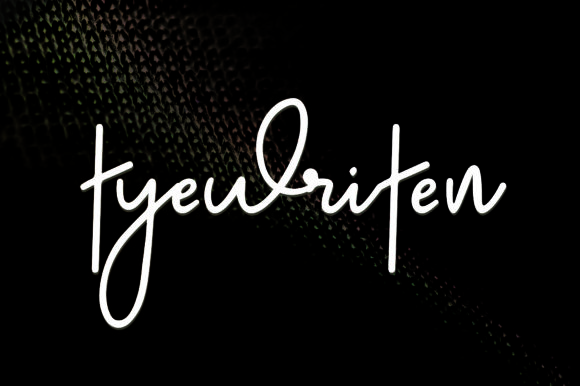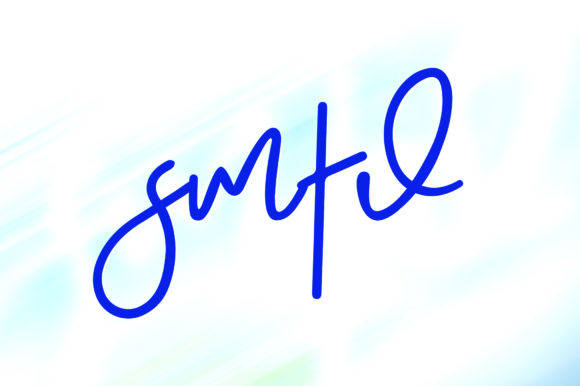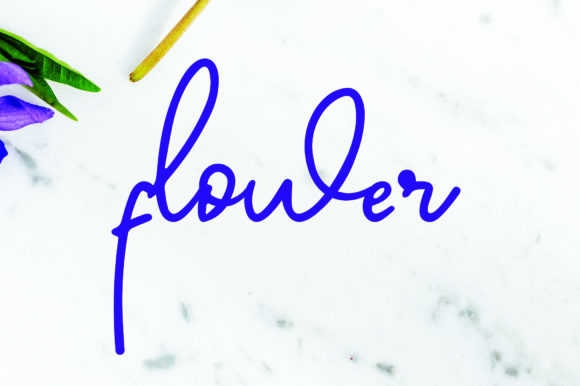
Betyio Font: The Ultimate Handwritten Font for Creative Projects
Are you a designer or crafter looking for a unique and versatile font to elevate your creative projects? Look no further than Betyio Font! This simple, original, and versatile handwritten font is perfect for a wide range of applications, from logos and wedding invitations to headings, t-shirts, and more.
What Makes Betyio Font So Special?
Betyio Font stands out from the crowd with its distinctive handwritten style, which adds a personal touch to any project. Its simplicity and elegance make it an excellent choice for designers and crafters who want to create something truly special. Whether you’re working on a logo, invitation, or signage, Betyio Font is sure to impress.
Uses for Betyio Font
The versatility of Betyio Font is one of its most significant advantages. Here are just a few examples of the many creative projects you can use it for:
- Logos: Create a unique and memorable logo for your business or brand with Betyio Font.
- Wedding Invitations: Add a touch of elegance and sophistication to your wedding invitations with this beautiful handwritten font.
- Headings: Use Betyio Font to create eye-catching headings for your blog posts, articles, or social media graphics.
- T-Shirts: Design custom t-shirts with Betyio Font for a unique and stylish look.
- Letterhead: Elevate your business correspondence with Betyio Font on your letterhead.
- Signage: Create eye-catching signs for your business or event with Betyio Font.
- Labels: Use Betyio Font to design custom labels for your products or gifts.
- News: Add a personal touch to your news articles or blog posts with Betyio Font.
- Posters: Create stunning posters for your business or event with Betyio Font.
- Badges: Design custom badges with Betyio Font for conferences, events, or employee recognition.
Why Choose Betyio Font?
So, why should you choose Betyio Font for your creative projects? Here are just a few reasons:
- Unique Style: Betyio Font has a distinctive handwritten style that sets it apart from other fonts.
- Versatility: Use Betyio Font for a wide range of creative projects, from logos to posters.
- Elegance: Betyio Font adds a touch of elegance and sophistication to any project.
- Easy to Read: Despite its handwritten style, Betyio Font is easy to read and understand.
Tips for Using Betyio Font
Here are a few tips for getting the most out of Betyio Font:
- Experiment with Sizes: Try out different font sizes to see how Betyio Font looks in various contexts.
- Pair with Other Fonts: Combine Betyio Font with other fonts to create a unique and visually appealing design.
- Use for Headlines: Use Betyio Font for headlines or titles to add a touch of elegance and sophistication.
- Add a Personal Touch: Use Betyio Font to add a personal touch to your designs, such as a handwritten note or signature.
In conclusion, Betyio Font is a versatile and elegant handwritten font that’s perfect for a wide range of creative projects. Its unique style, ease of use, and versatility make it an excellent choice for designers and crafters. Whether you’re working on a logo, invitation, or signage, Betyio Font is sure to impress. So why not give it a try and see what amazing creations you can come up with?